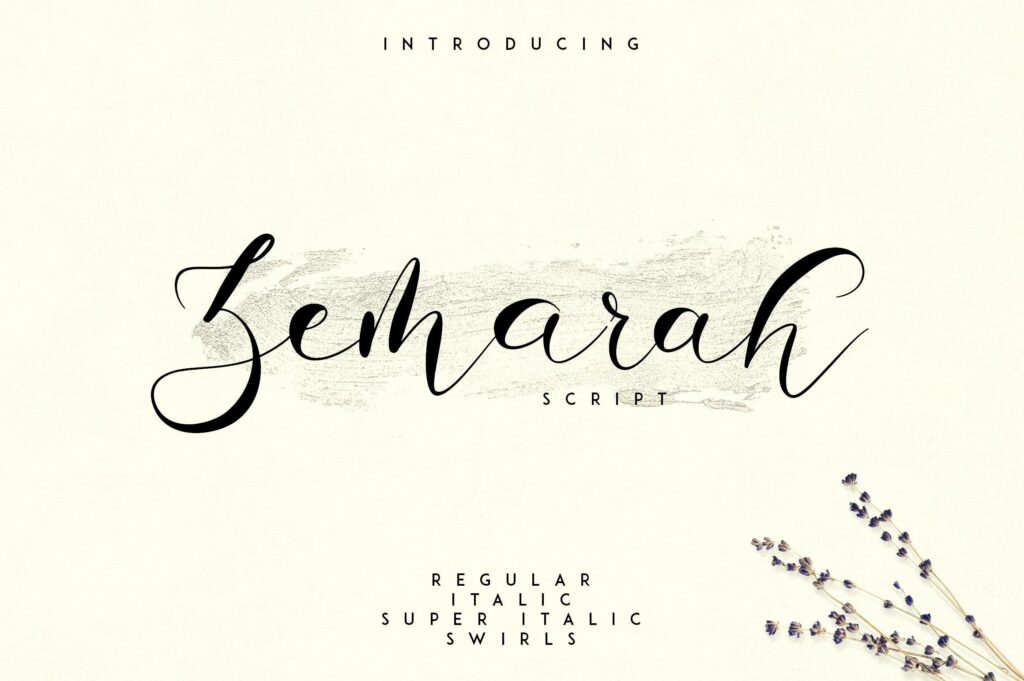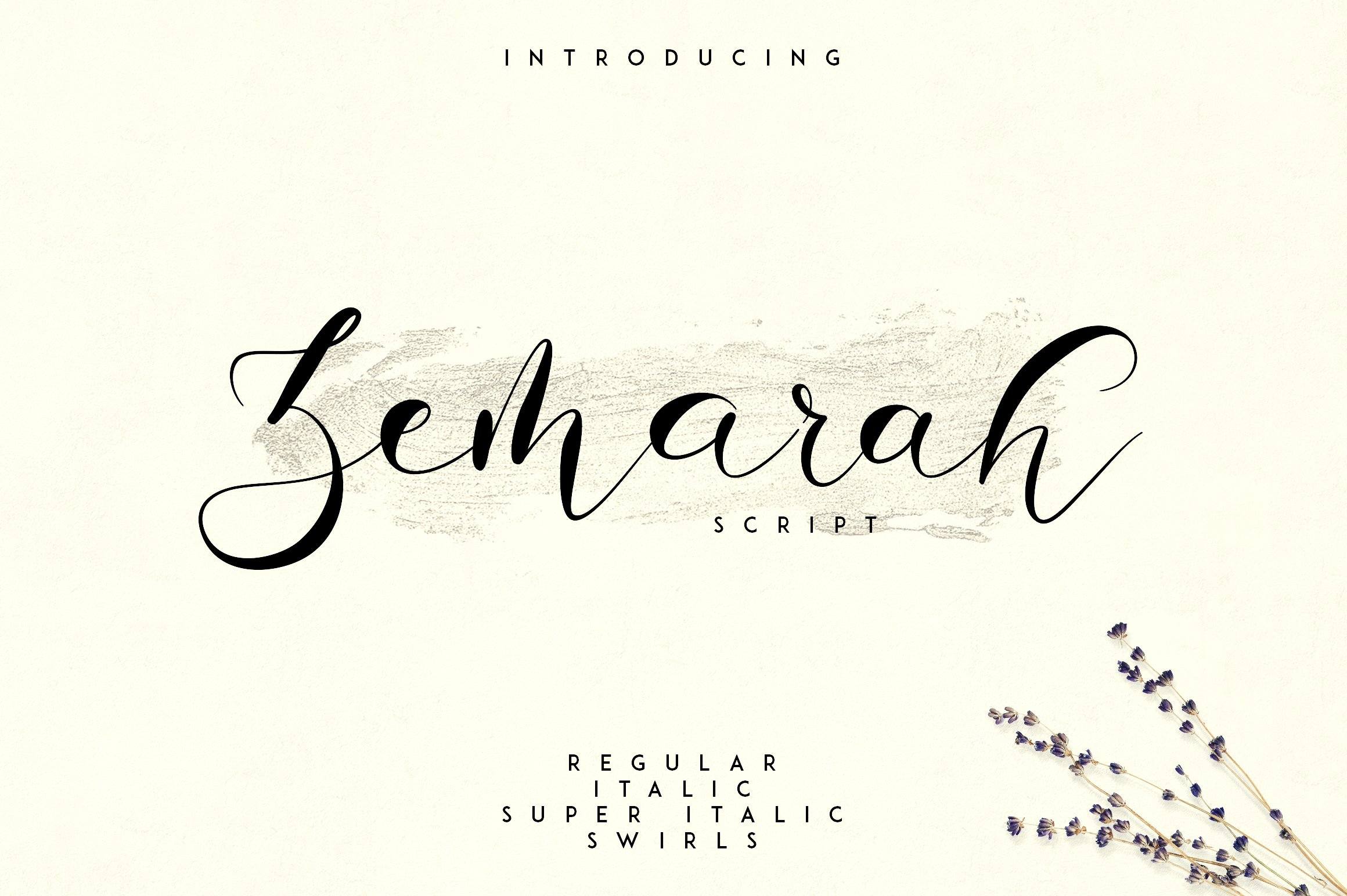
About Zemarah script – 3 styles + Extras
Introducing Zemarah script Zemarah is not ordinary, elegant typeface with 3 styles, swirls and multilingual support. It’s a very versatile font that works great in large and small sizes. Zemarah is perfect for branding projects, home-ware designs, product packaging, magazine headers – or simply as a stylish text overlay to any background image. Uppercase,lowercase,numeral,punctuation & Symbol Multilingual Regular Italic Super Italic Ligatures Alternative glyphs Swirls Feel free to contact me if you have any questions! Mock ups and backgrounds used are not included! Thank you! Enjoy!